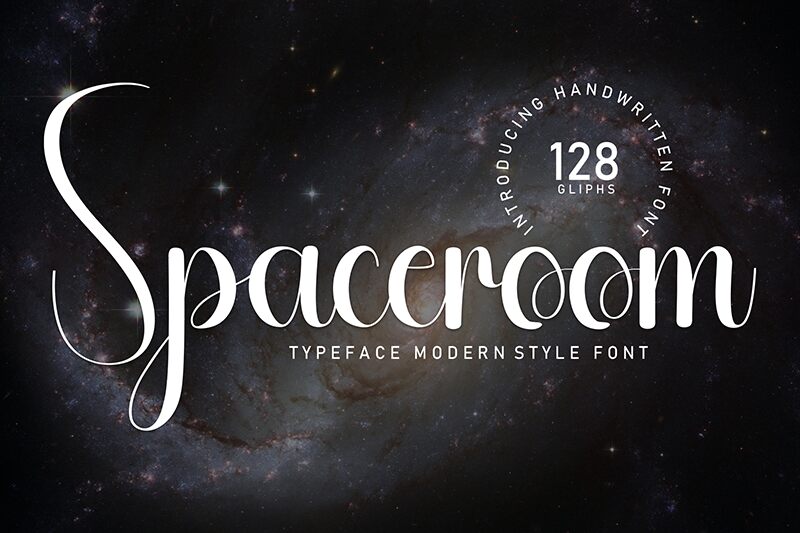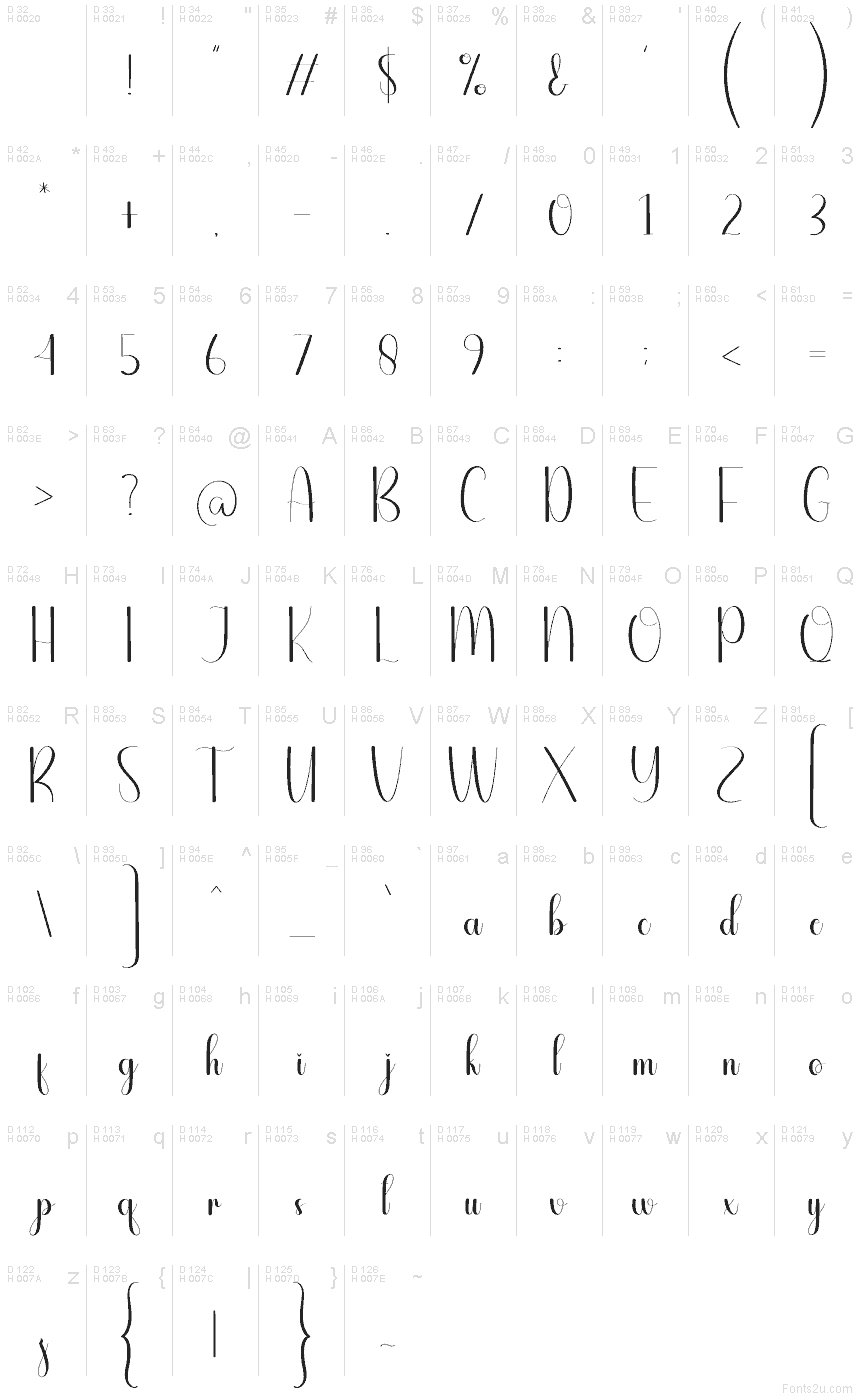
Spaceroom
Spaceroom font is a free handwritten font designed by Andi Moz. A combination of fluid lines and decorated elements make this font elegant and unique. Its italic style further highlights each character’s modern script look.
In addition to texts, Spaceroom can be used for logos, posters, banners, social media posts, product/packaging design, covers (book/CD), apparel design, magazines titles/headers and more.